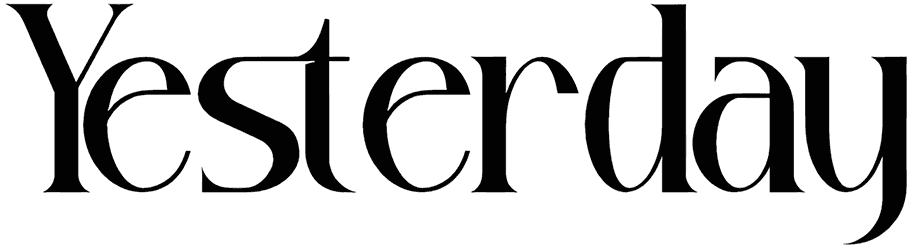
Yesterday Font
It is really rare to find a formal, elegant font such as Yesterday that gets pretty close to satisfying all of your audience and turns them into loyal customers through its strong characters and high readability.
Due to its simple form, it can evoke a sense of trustworthiness, minimalistic, confidence, and reliability. We advise you to pick up this masterpiece for your magazines, book covers, business cards, product packaging, and the user interface of applications.